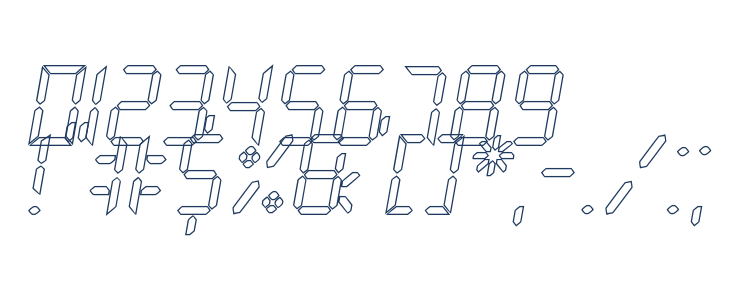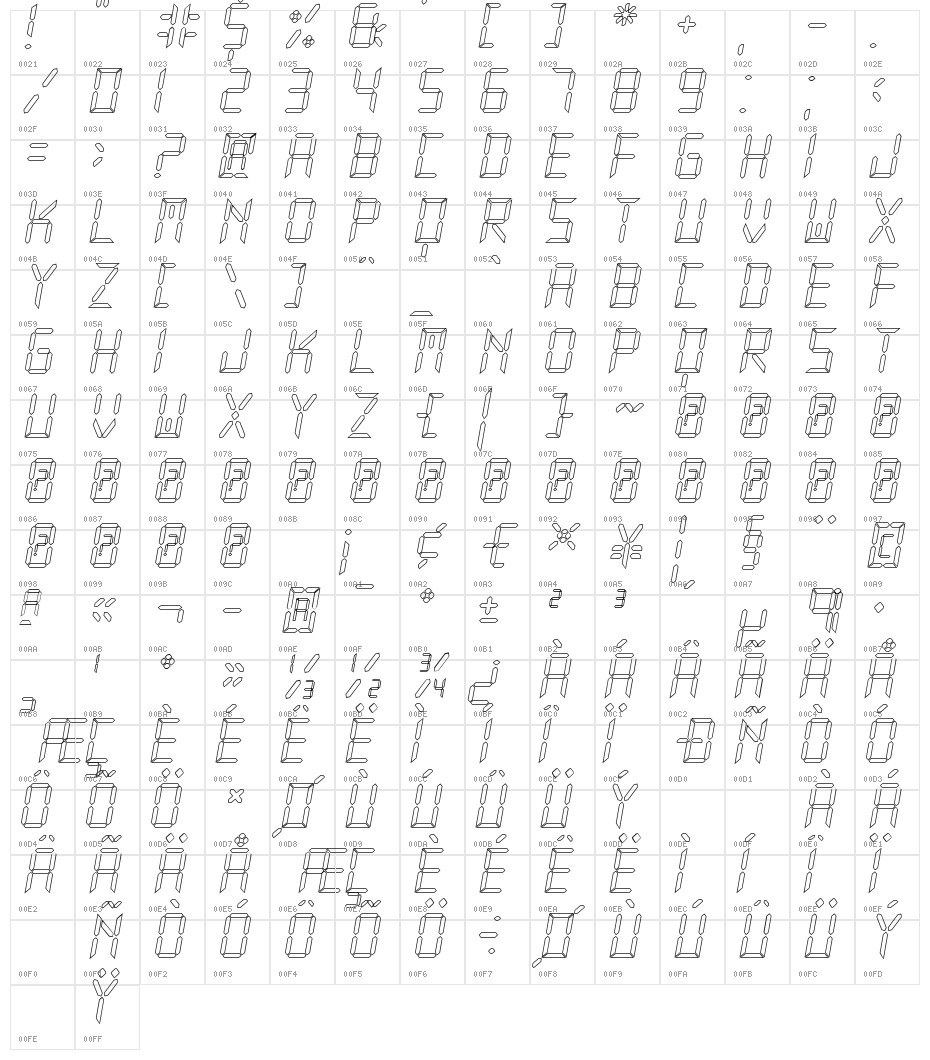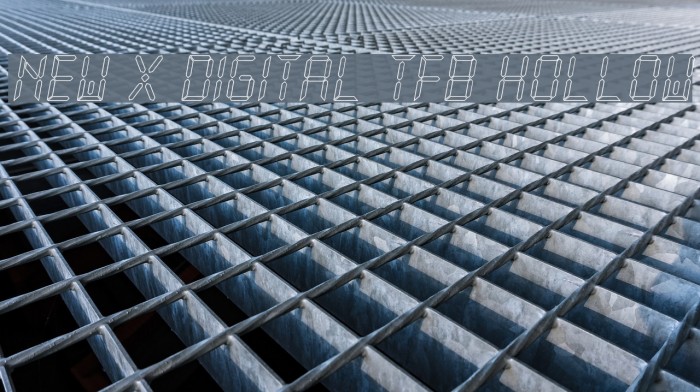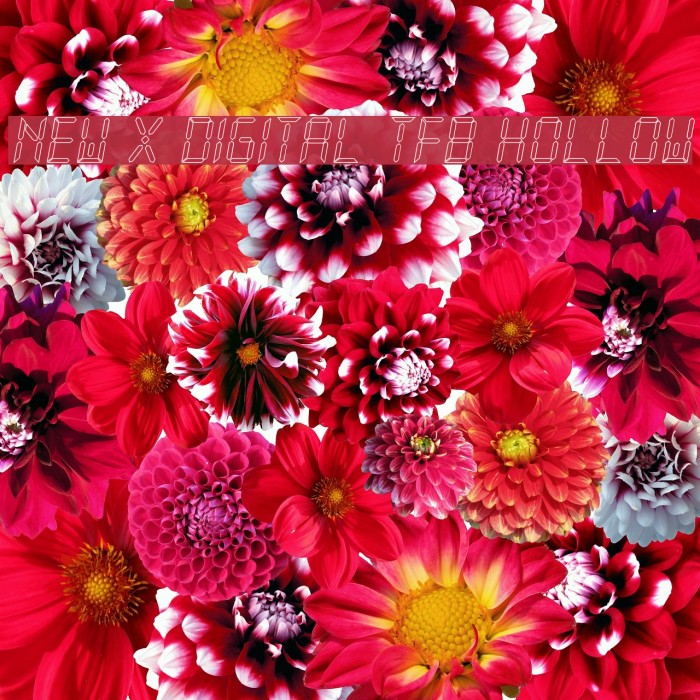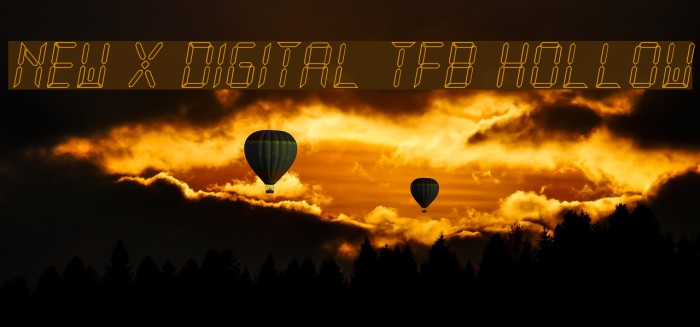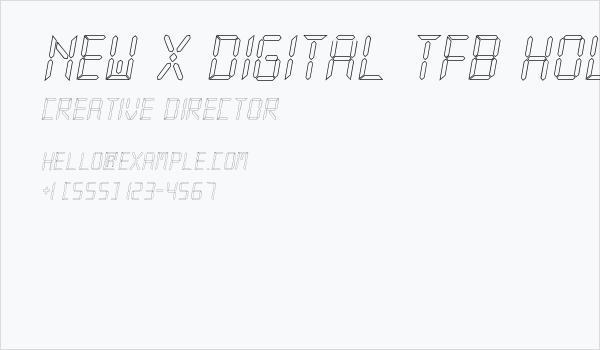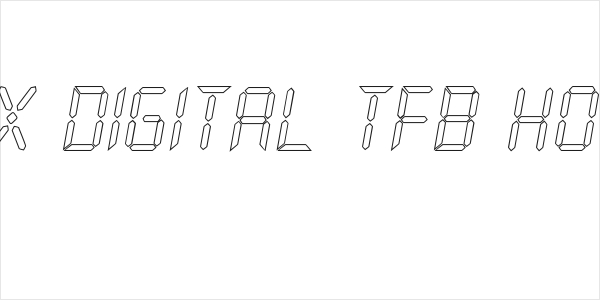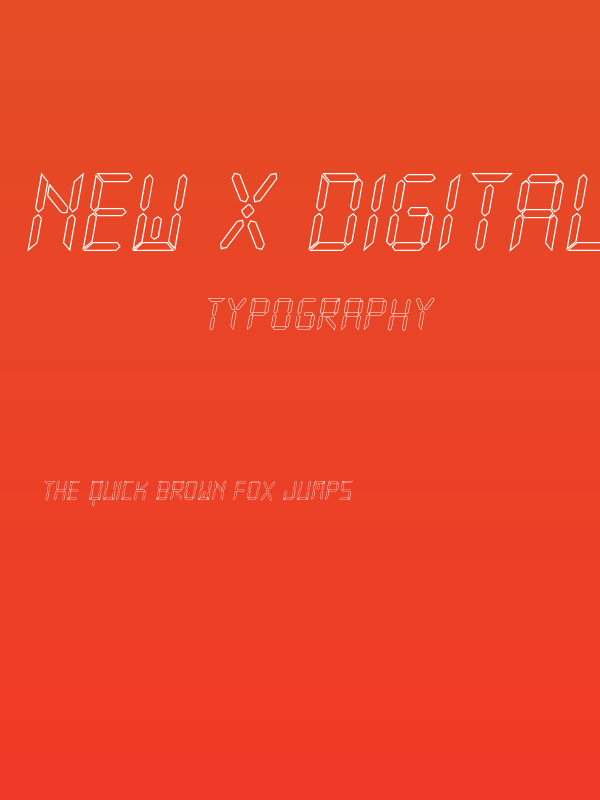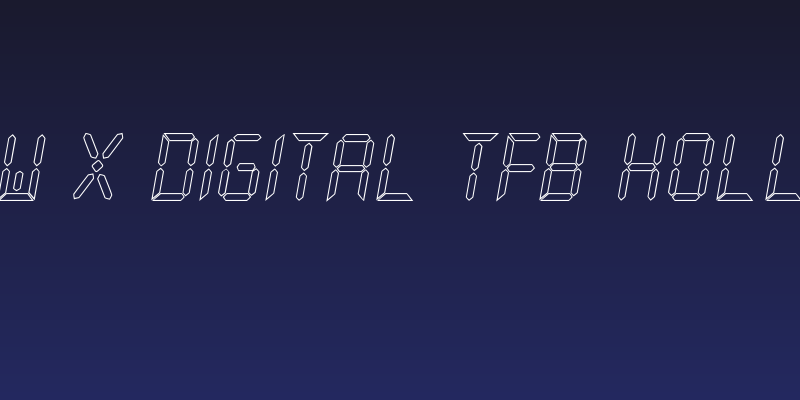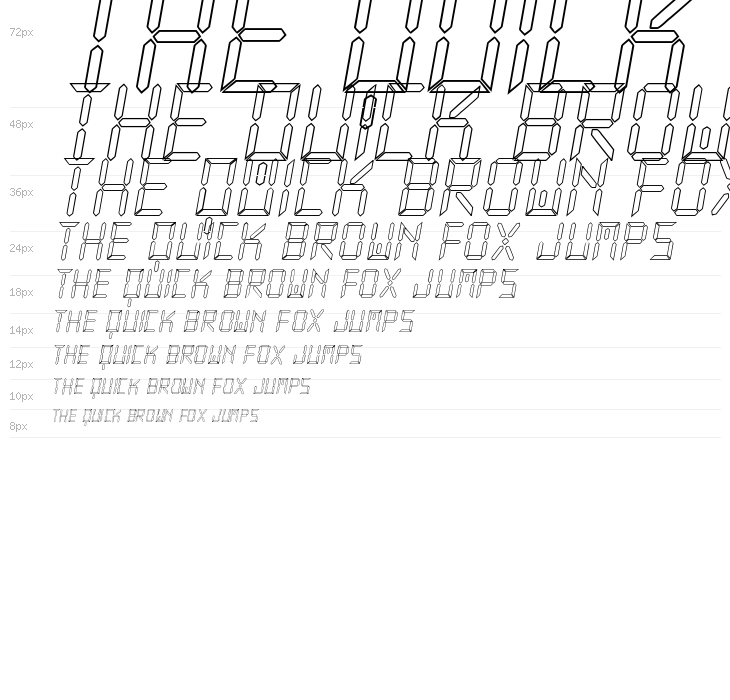
New X Digital tfb Hollow Font
New X Digital tfb Hollow Description
This font features a digital, futuristic design with a hollow, segmented appearance reminiscent of digital clock displays. Each character is constructed with angular, geometric shapes, giving it a technical and modern feel. The uppercase and lowercase letters maintain a consistent style, with the lowercase being slightly smaller in scale. Numbers and special characters follow the same segmented pattern, ensuring uniformity across all glyphs. The font's hollow design allows for a unique visual effect, making it stand out in digital and tech-themed projects.
| Proposed Projects | Ideal for digital interfaces, tech branding, sci-fi themed designs, and modern posters. |